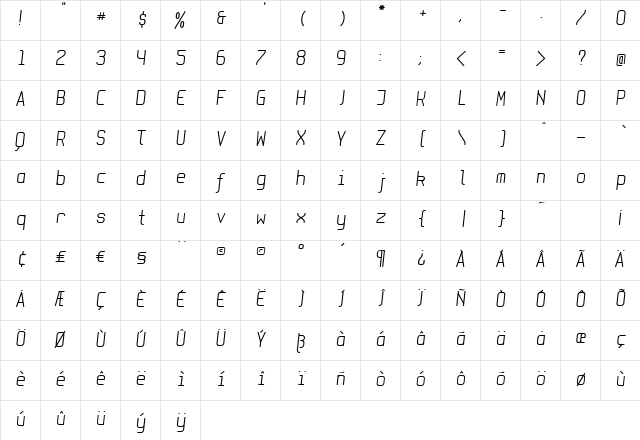
MonoItalic Regular Font Preview
MonoItalic Regular
Design Context for MonoItalic Typeface
MonoItalic brings the precise, column-aligned rhythm of monospaced typography to designs that value technical clarity and systematic order. The slanted form adds forward momentum and visual energy.